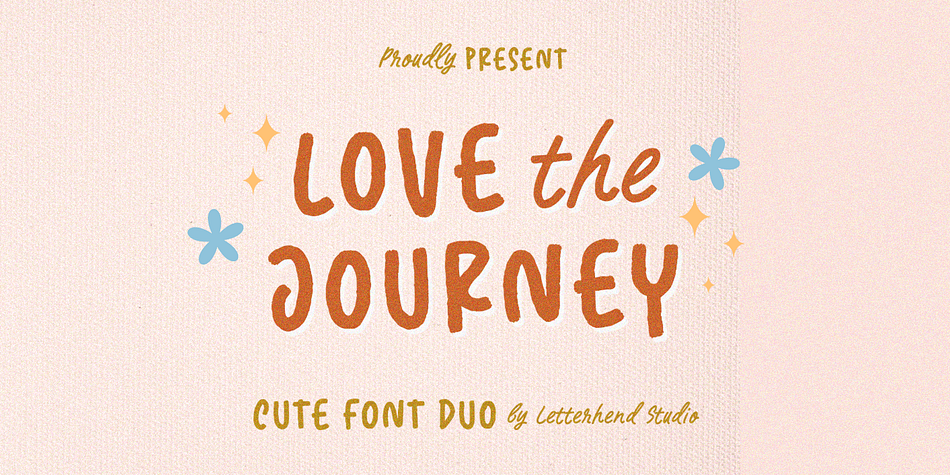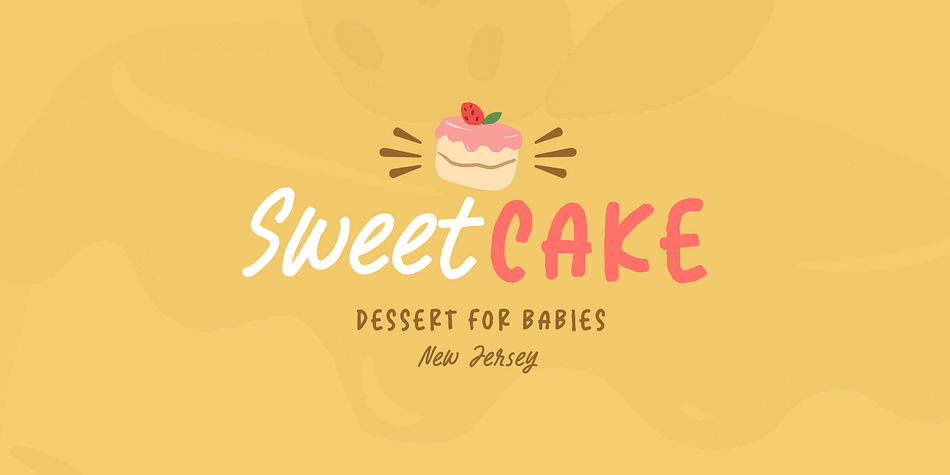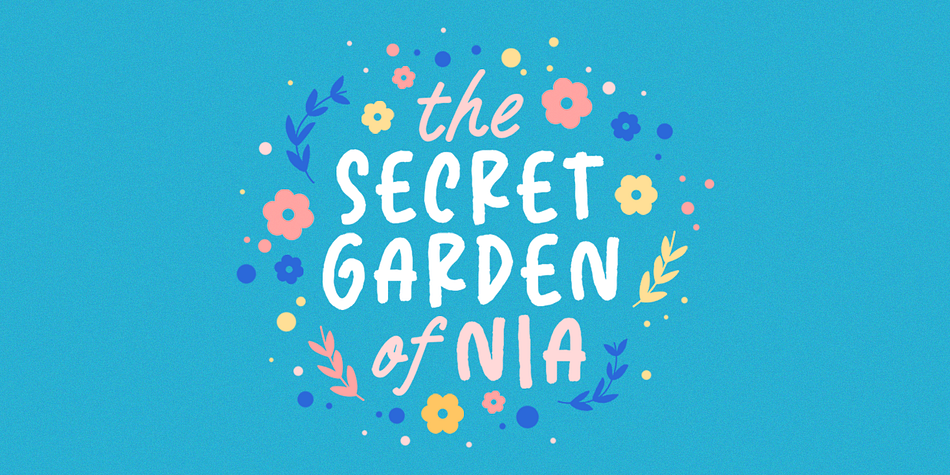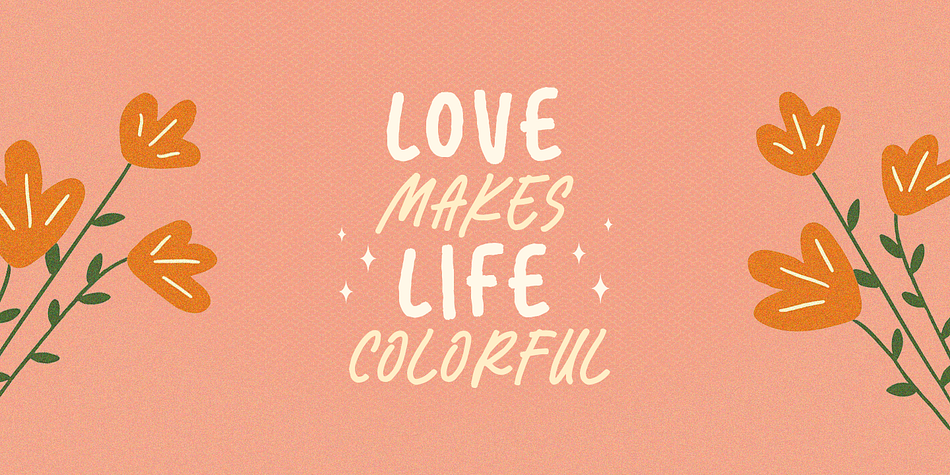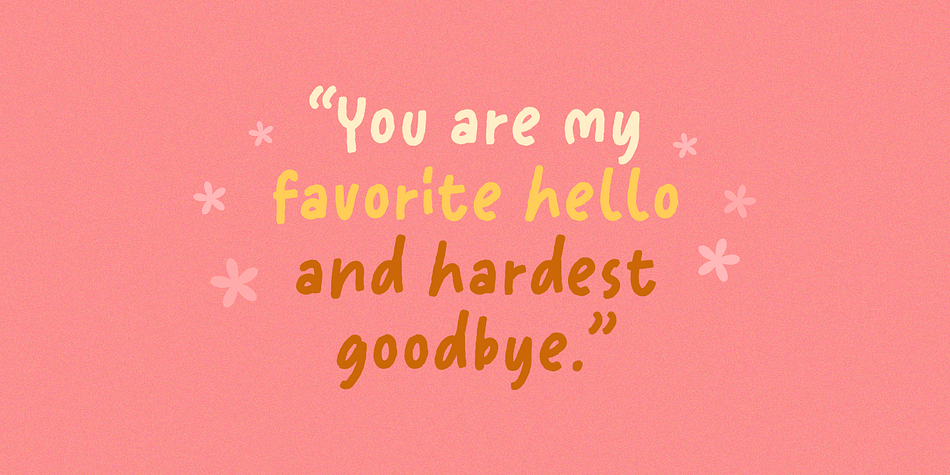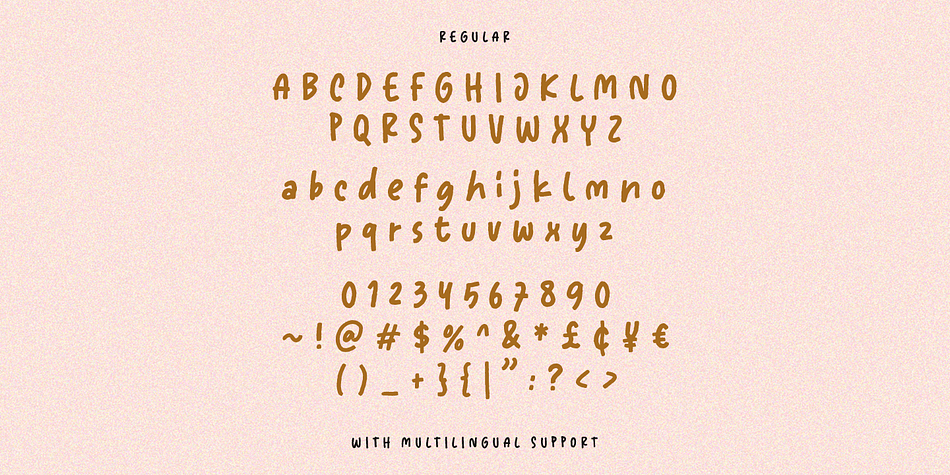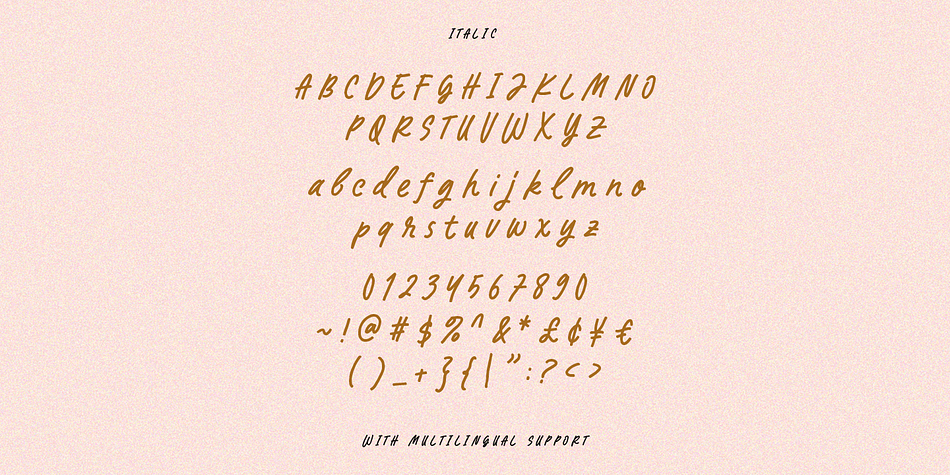
Love The Journey
Designed by Hendry Juanda, Love The Journey is a hand drawn, kids and script font family. This typeface has two styles and was published by Letterhend Studio.
Love The Journey is a cute handwritten font. It comes with 2 looks, regular and slant version. This font perfectly made to be applied especially in logo, and the other various formal forms such as invitations, labels, logos, magazines, books, greeting / wedding cards, packaging, fashion, make up, stationery, novels, labels or any type of advertising purpose.
- Alternates & Ligatures